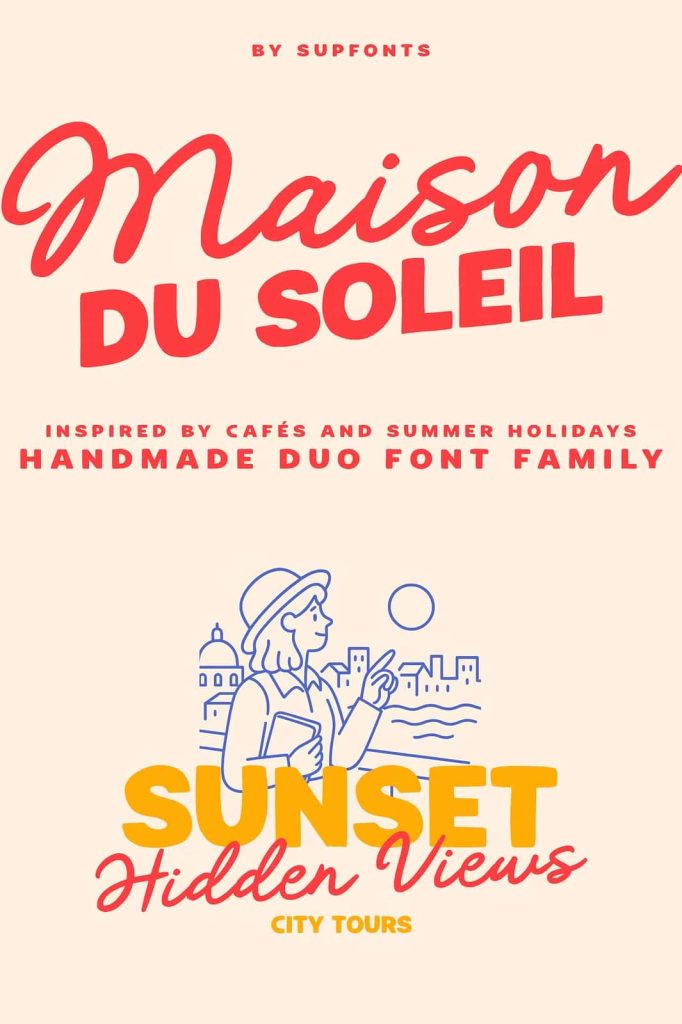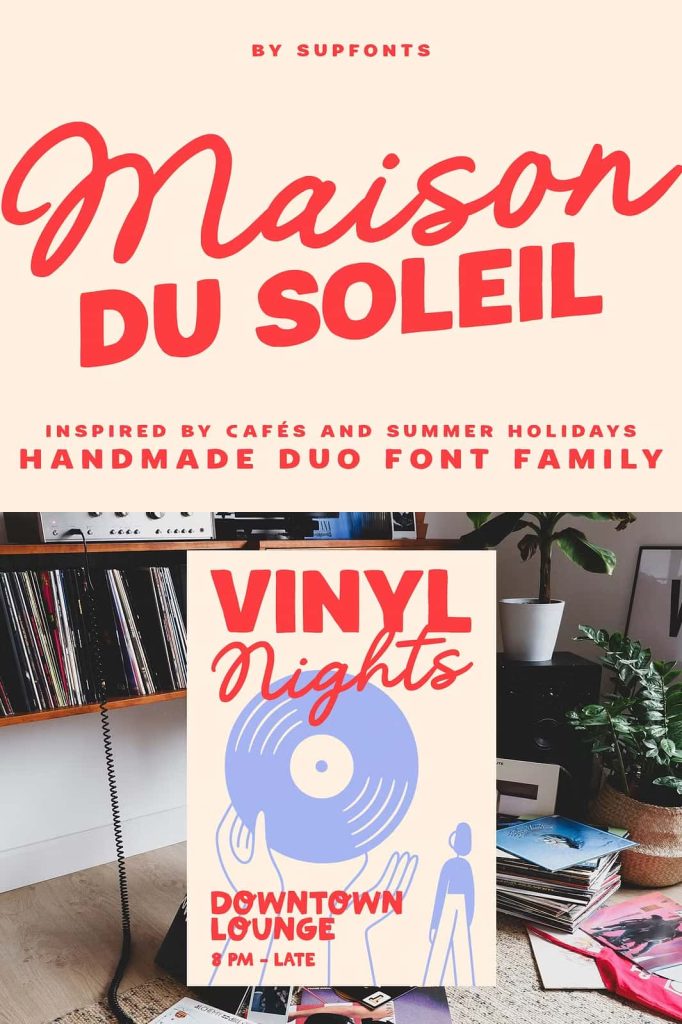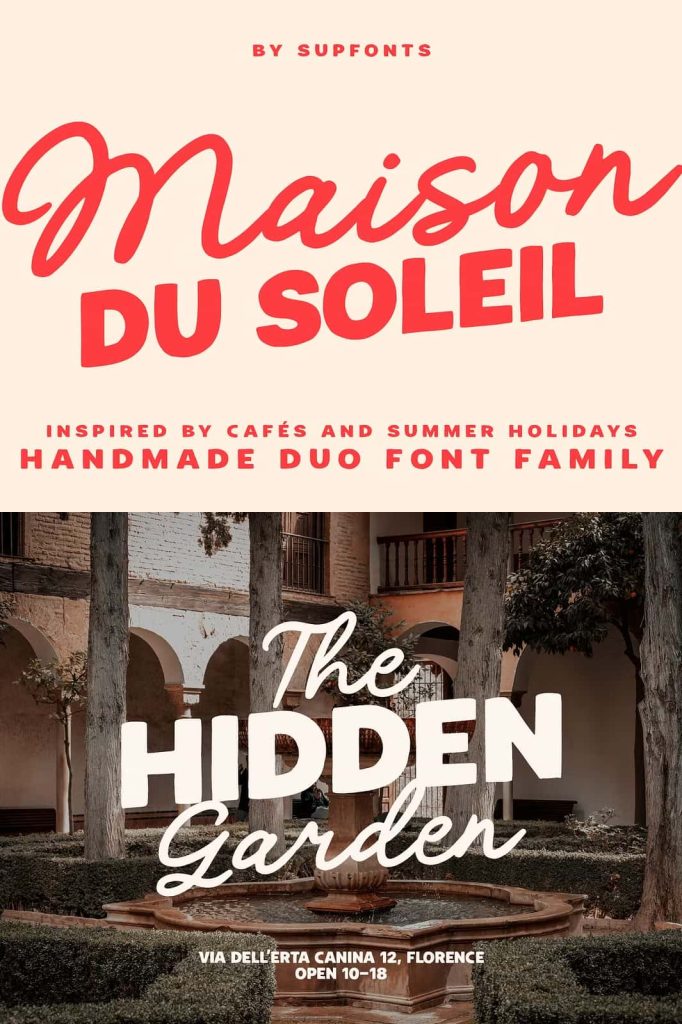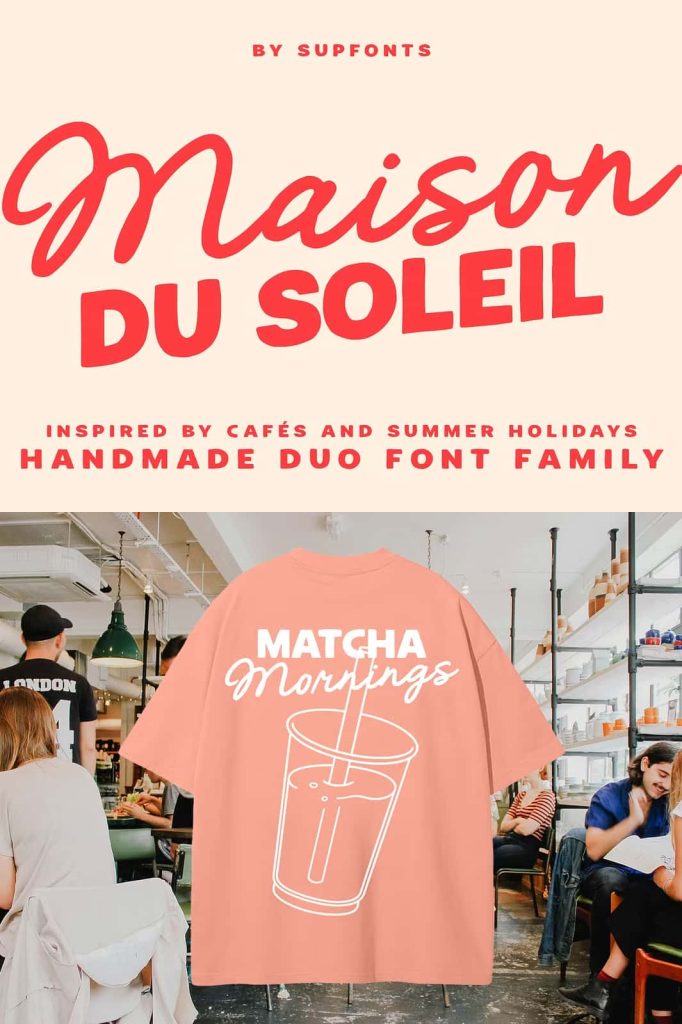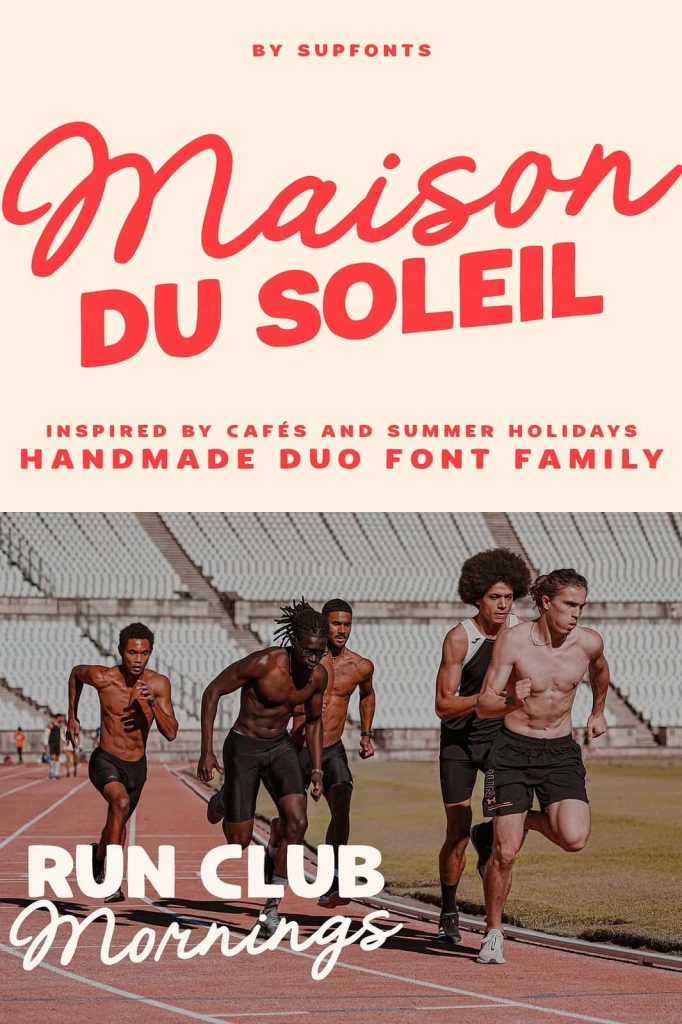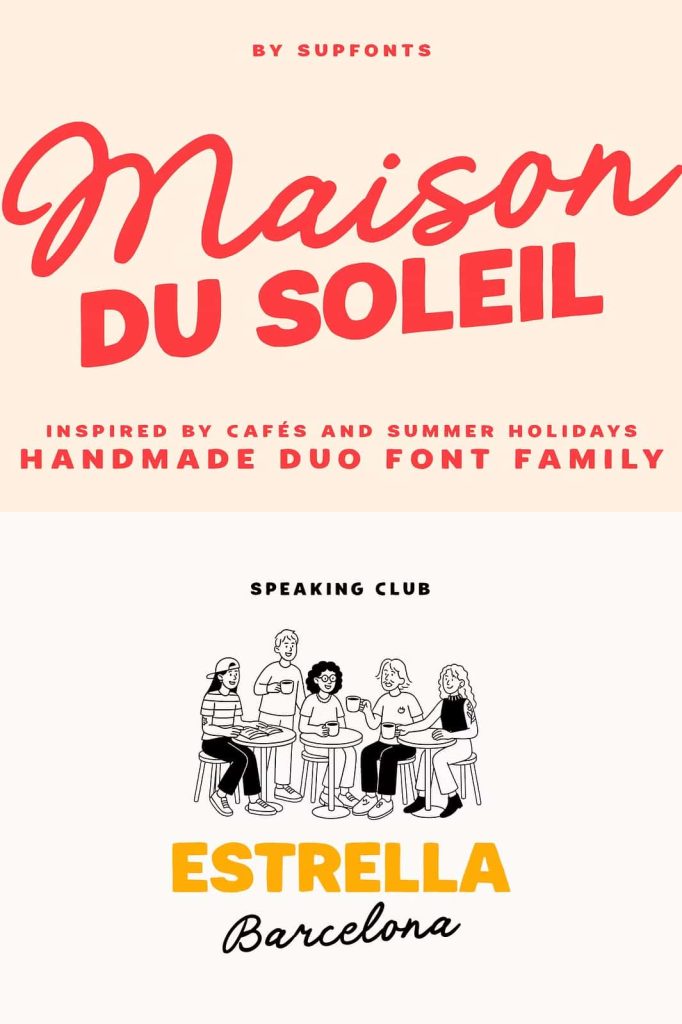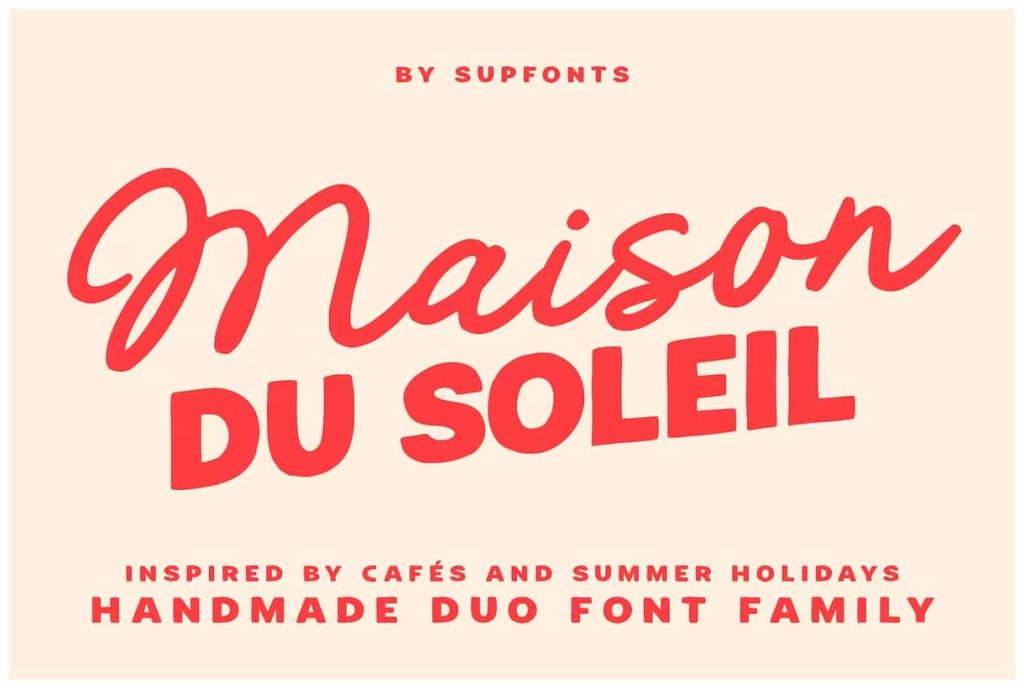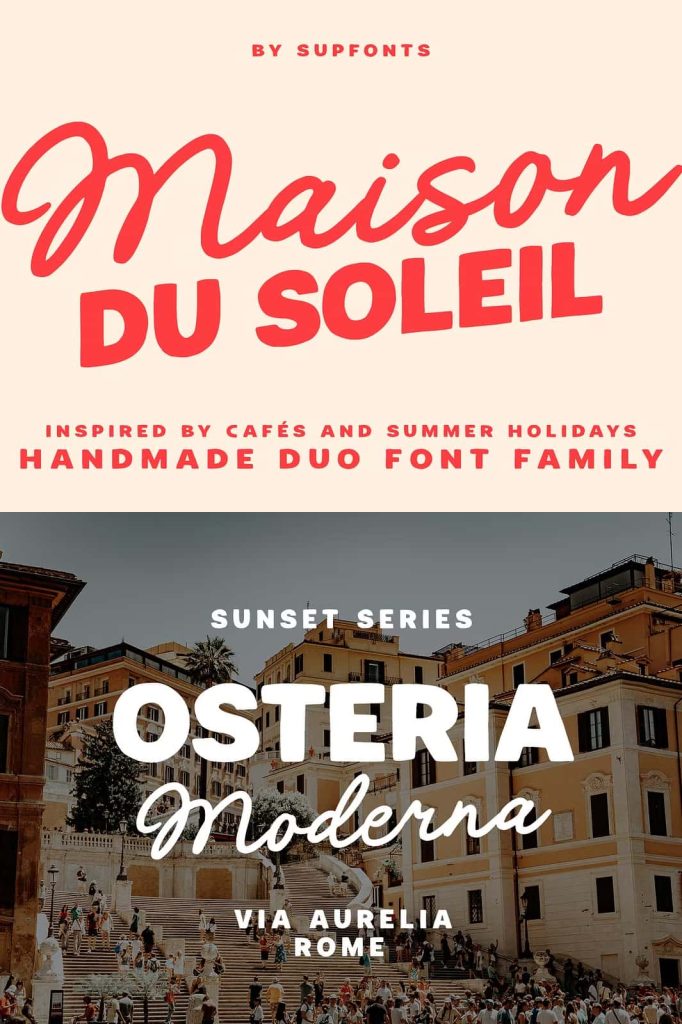
Maison du Soleil Font Duo
The Maison du Soleil font duo brings warmth, personality, and creative charm into modern typography. This carefully designed typeface pair combines a playful handwritten script with a bold sans serif font, creating a balanced and versatile typographic system. Inspired by the relaxed atmosphere of sunny cafés and vibrant summer days, Maison du Soleil captures the feeling of warmth, creativity, and friendly design.
Font duos allow designers to create dynamic visual compositions by combining two complementary styles. Maison du Soleil embraces this approach by pairing expressive handwritten lettering with structured modern typography. The script font delivers artistic character and a personal touch, while the sans serif version provides clarity, strength, and readability. Together, they form a harmonious combination that works beautifully across many creative projects.
Designers who want typography that feels inviting and authentic will appreciate the personality of Maison du Soleil. Its handcrafted appearance and modern structure make it suitable for branding, marketing materials, packaging design, and creative print layouts.
Inspired by Sunny Cafés and Summer Atmosphere
The design of the Maison du Soleil font duo draws inspiration from the cheerful environments of café terraces, warm sunshine, and relaxed summer moments. Many boutique cafés and lifestyle brands rely on typography that feels welcoming and expressive. Maison du Soleil captures this atmosphere through its friendly shapes and natural handwritten style.
The playful script reflects the casual elegance of handwritten menu boards and artisan signage often seen in small cafés and local bakeries. These environments celebrate creativity, comfort, and human connection, and the script font translates that spirit directly into typography.
Meanwhile, the bold sans serif component introduces a modern foundation that keeps the overall design clean and organized. This combination allows designers to evoke a warm and lively mood while maintaining professional visual structure.
A Playful Handmade Script Font
The script portion of the Maison du Soleil font duo features expressive, hand-drawn lettering that feels natural and spontaneous. Each letter reflects the movement of handwritten strokes, giving the font a relaxed and artistic personality. This playful style makes the script ideal for adding warmth and individuality to design projects.
Handwritten fonts help create emotional connection with audiences because they feel more personal than mechanical digital typefaces. The script in Maison du Soleil achieves this effect by incorporating fluid curves and organic letter shapes that mimic authentic handwriting.
Designers often use the script style for headlines, brand names, invitations, or decorative phrases. When placed prominently in a layout, it instantly communicates friendliness and creative energy.
A Bold Sans Serif for Structure and Balance
Complementing the playful script is a strong sans serif font that adds stability and readability to the duo. The sans serif style features clean lines and balanced proportions that work effectively in both print and digital layouts.
This bold typeface serves as the structural anchor of the font pair. Designers can use it for supporting text, subheadings, product descriptions, and other information that requires clear communication. Because the sans serif letters are simple and modern, they contrast nicely with the expressive script.
The combination allows designers to create clear visual hierarchy within their projects. The script captures attention and expresses personality, while the sans serif ensures that the design remains organized and easy to read.
Perfect for Branding, Packaging, and Invitations
The Maison du Soleil font duo performs exceptionally well in projects that emphasize personality and warmth. Designers frequently use it for branding projects that require a friendly and approachable visual identity.
Logos designed with the script font immediately feel artistic and welcoming, especially for boutique businesses, cafés, bakeries, lifestyle brands, and handmade product shops. The sans serif version supports these logos by providing clean typography for supporting text or brand messaging.
Packaging design also benefits from the duo’s balance of charm and clarity. The script style helps highlight product names or special phrases, while the sans serif font communicates ingredients, descriptions, or instructions clearly.
Invitations and stationery represent another perfect use case. Wedding invitations, party announcements, and event stationery gain a personal and joyful atmosphere when designers combine the handwritten script with the bold sans serif.
Versatile Typography for Creative Design Projects
The Maison du Soleil font duo offers designers a flexible typographic solution that adapts easily to many different creative environments. Graphic designers, brand creators, and illustrators can use the font pair in posters, social media graphics, marketing materials, editorial layouts, and product branding.
Its warm personality makes it especially effective for lifestyle brands, creative businesses, and hospitality-related projects. Designers can build cohesive layouts by mixing script headlines with structured sans serif text, creating visual balance while maintaining a lively and welcoming style.
By blending a playful handwritten script with a confident bold sans serif, Maison du Soleil delivers a font duo that feels both modern and personal. This thoughtful pairing allows designers to produce typography that communicates warmth, creativity, and authenticity across a wide variety of design projects.